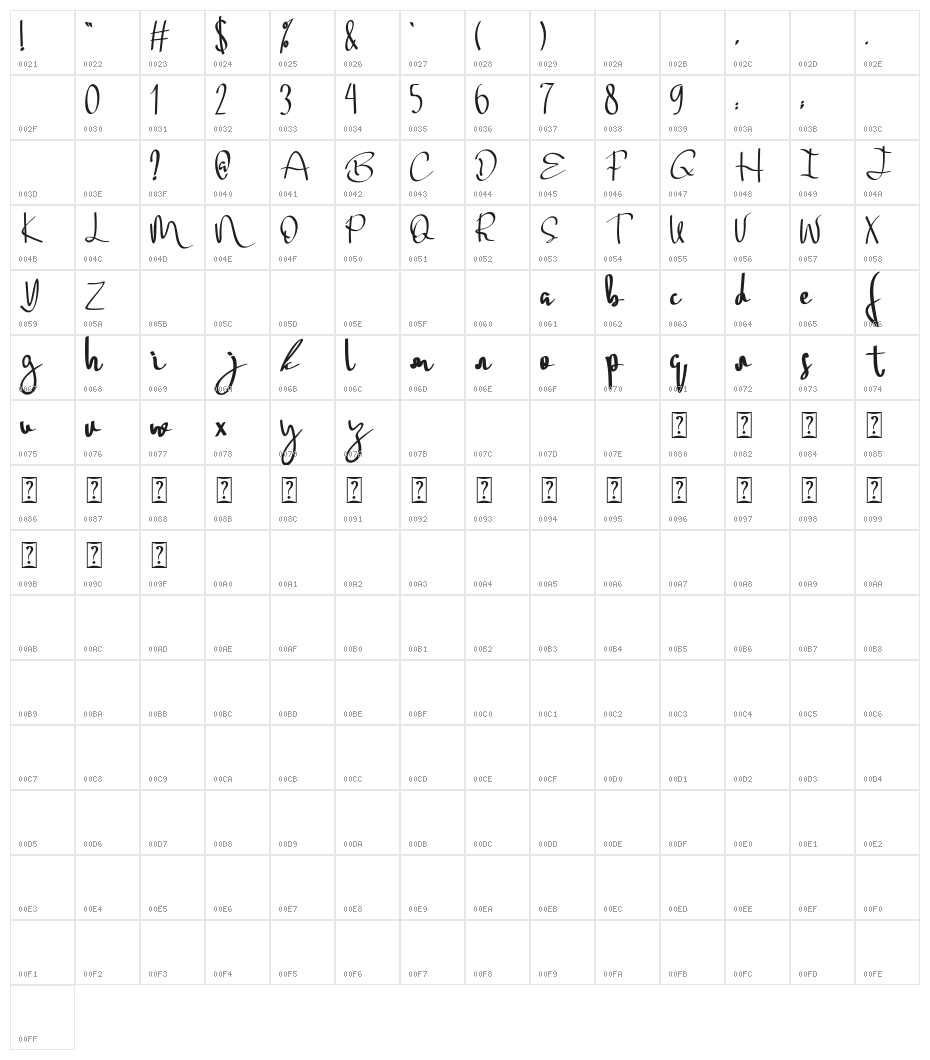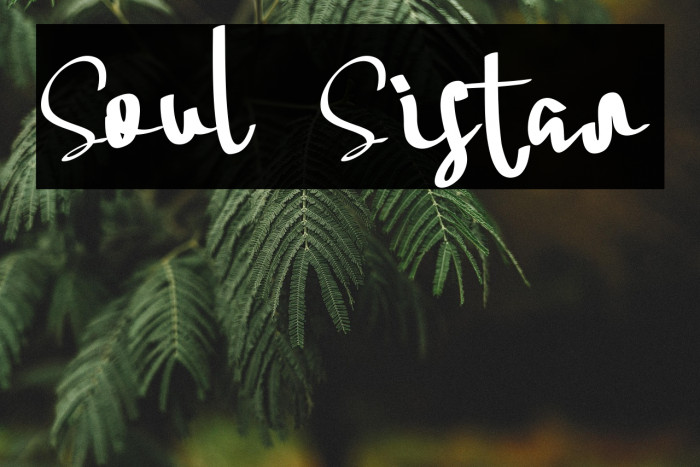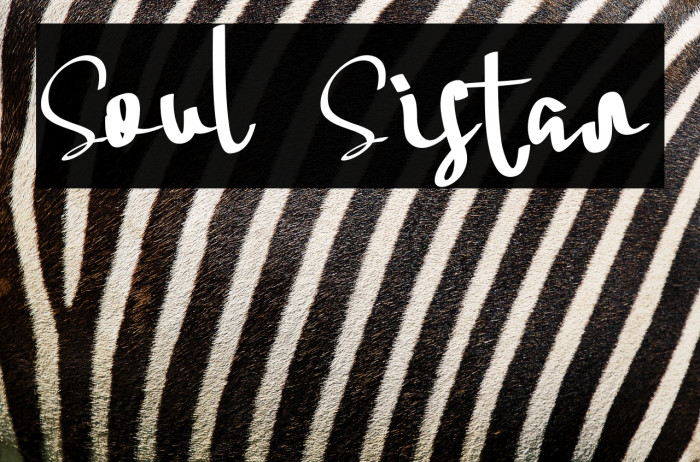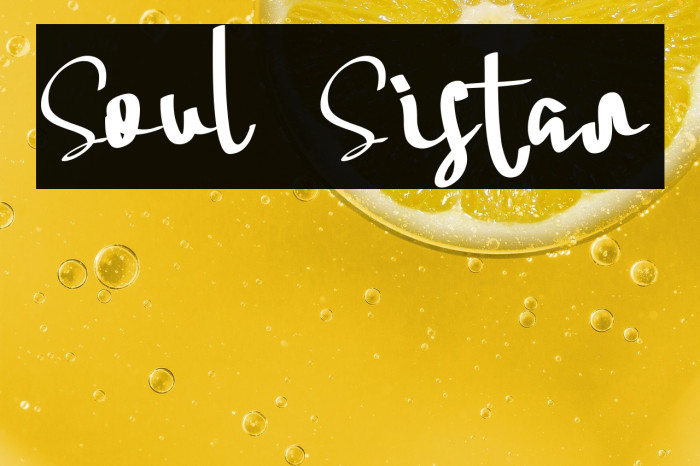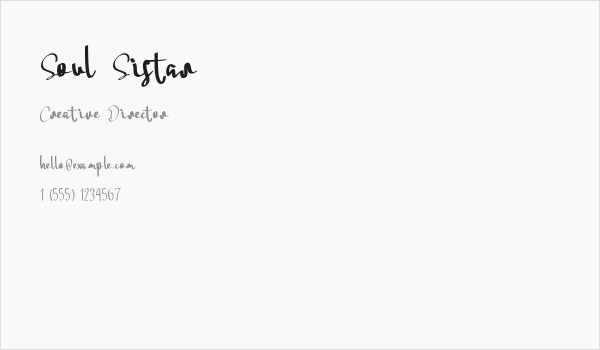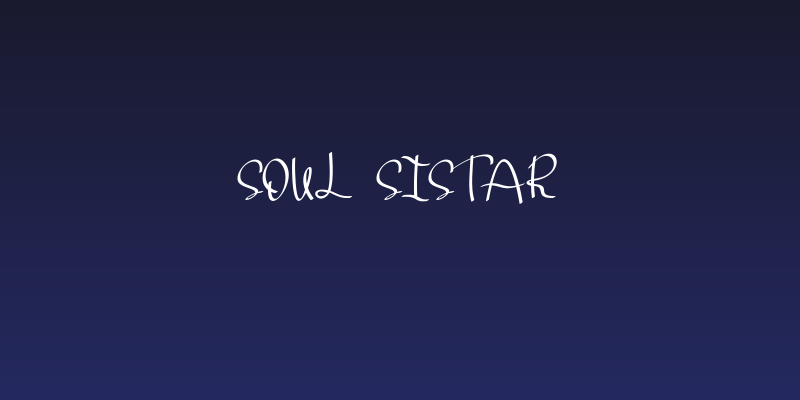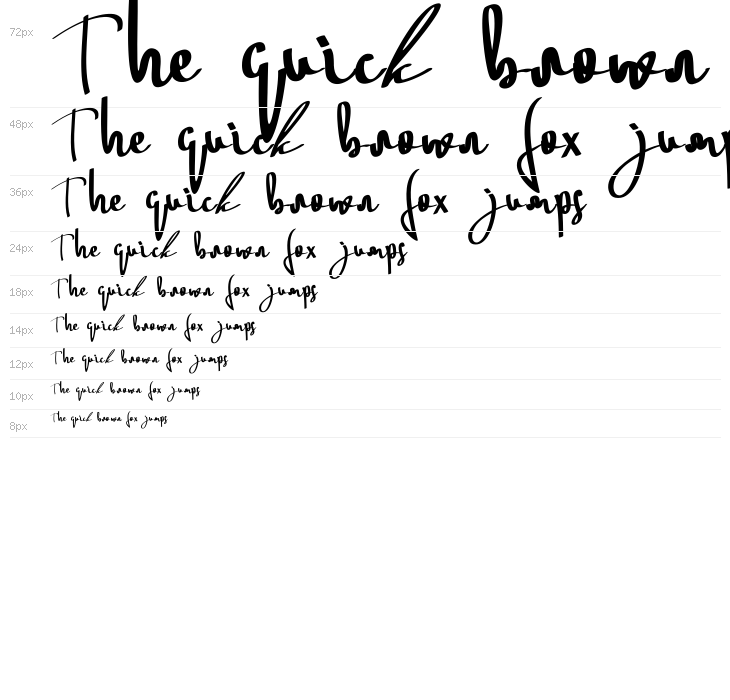
Soul Sistar Font
Soul Sistar Description
This font features a lively and expressive handwritten style, characterized by its fluid and dynamic strokes. The uppercase letters are elegantly curved, with a playful and artistic flair that adds personality to the text. The lowercase letters maintain a consistent flow, with some characters extending below the baseline, enhancing the font's organic feel. Numbers are clear and legible, while special characters are creatively integrated, maintaining the overall aesthetic. The font's unique style makes it suitable for projects that require a personal touch or a creative, informal vibe.
| Proposed Projects | Ideal for greeting cards, invitations, personal branding, and creative projects. |